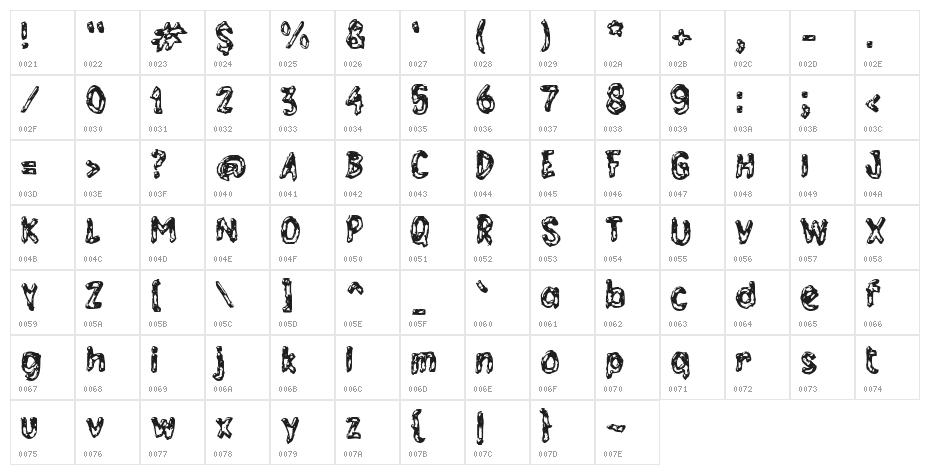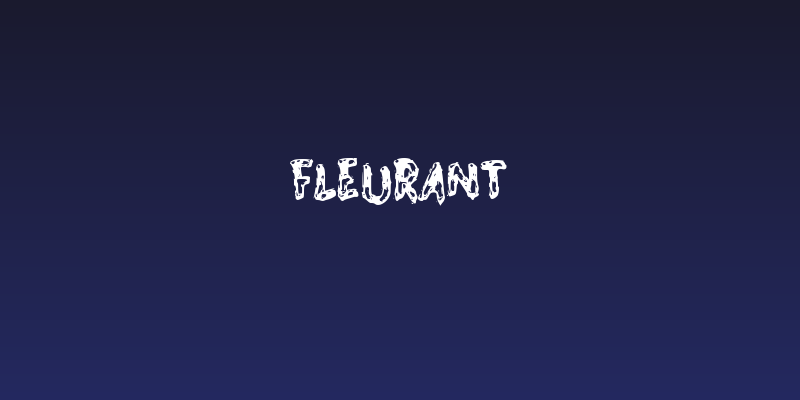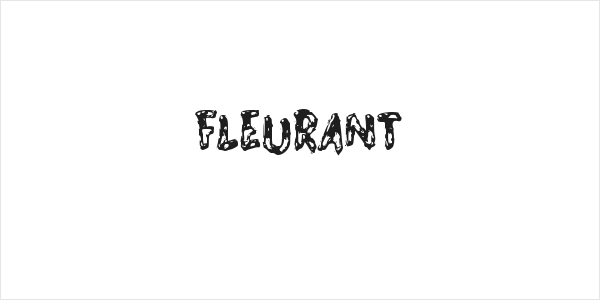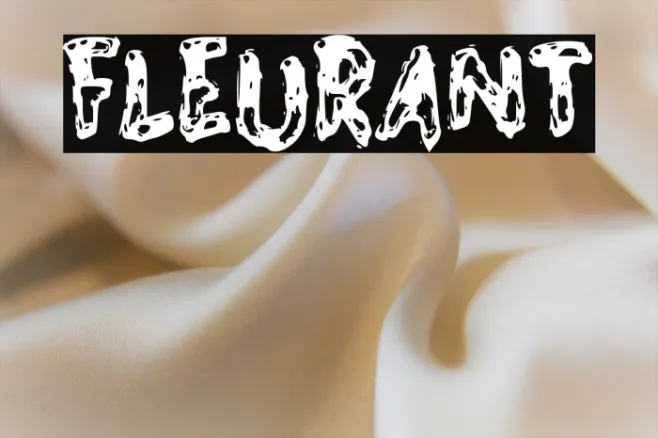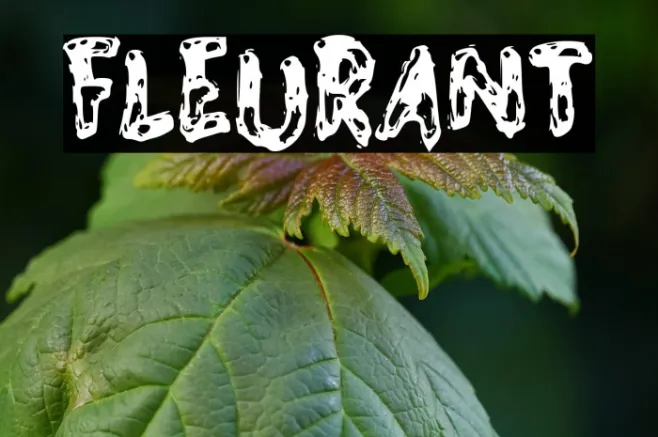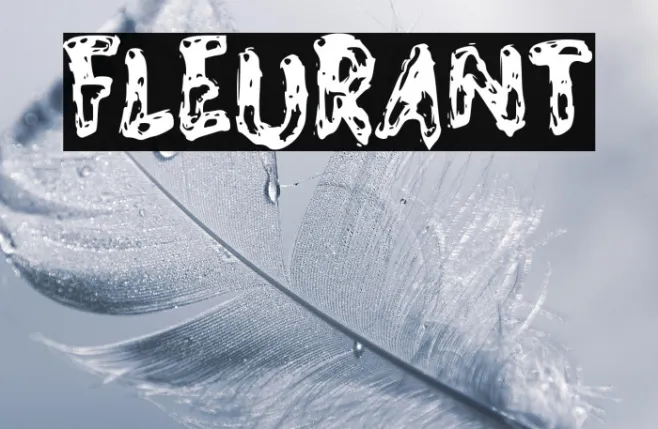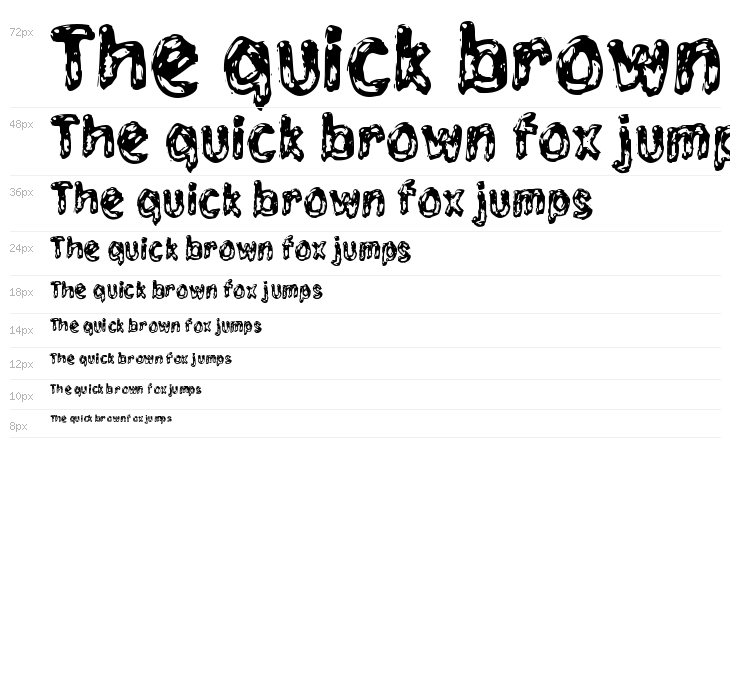
FLEURANT Font
FLEURANT Description
This font features a bold, decorative style with a hand-drawn appearance. The characters are irregular and textured, giving them a unique, artistic look. The uppercase and lowercase letters maintain a consistent style, with a playful and slightly chaotic design. The numbers and special characters follow the same aesthetic, making the font cohesive throughout. Its boldness and distinctiveness make it stand out, suitable for creative and eye-catching designs.
| Use Case | Headlines, Logos, Artistic projects |
| Proposed Projects | Ideal for posters, album covers, artistic projects, and branding that requires a bold, creative touch. |